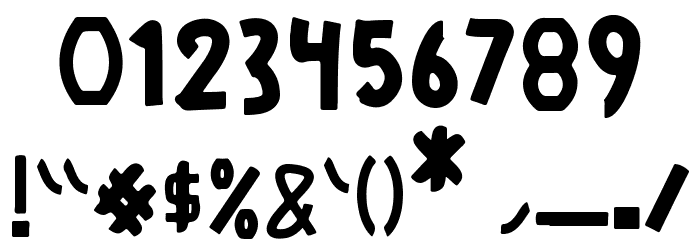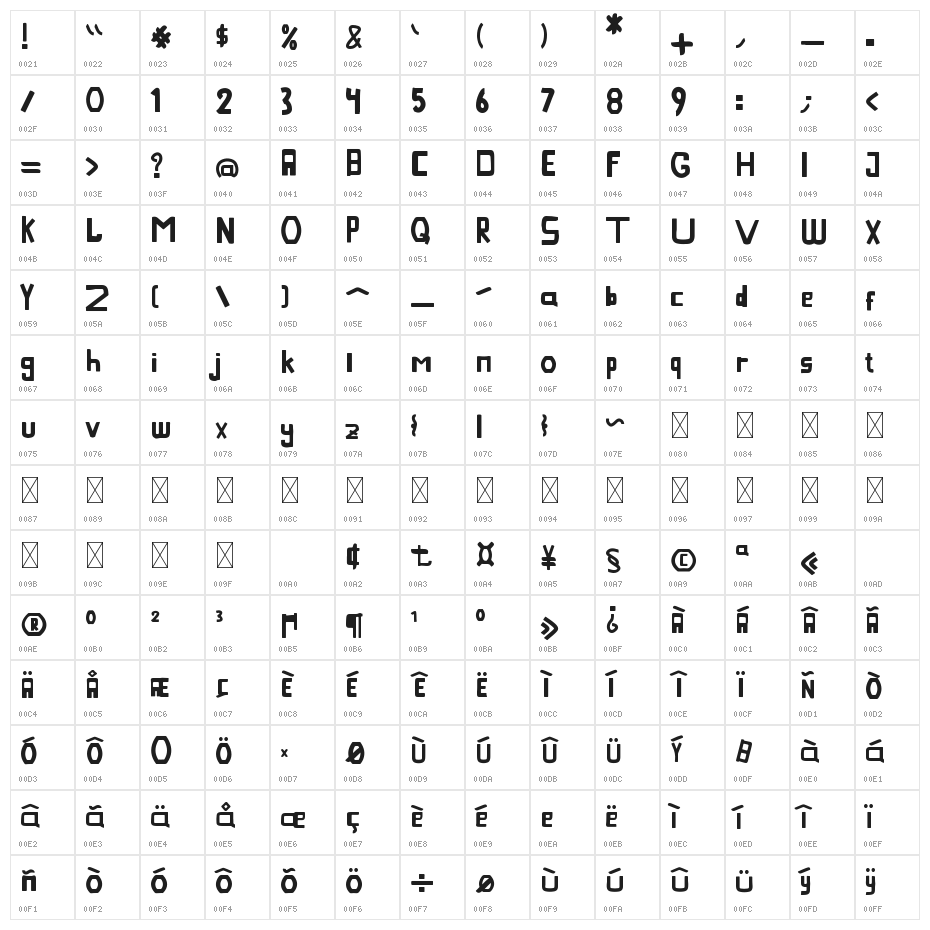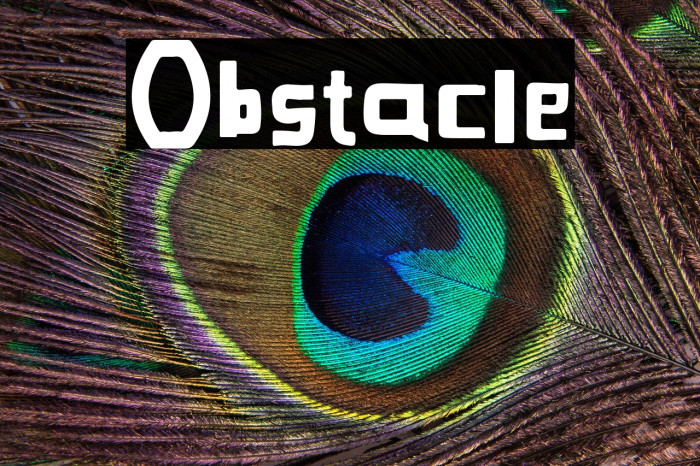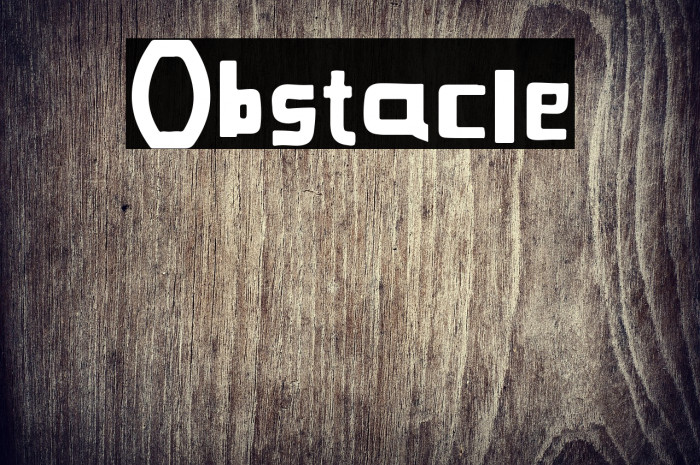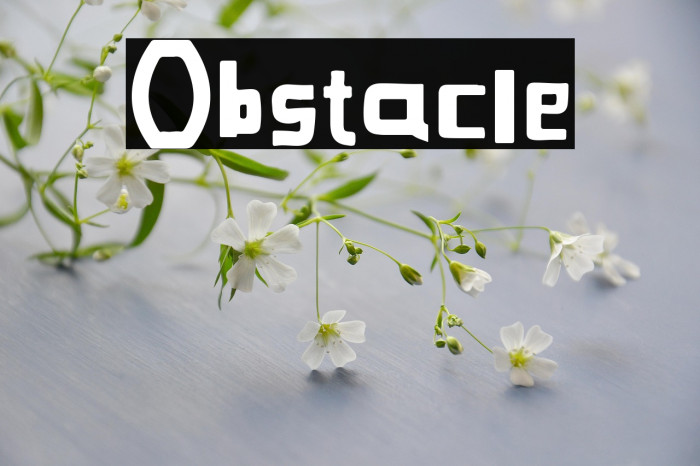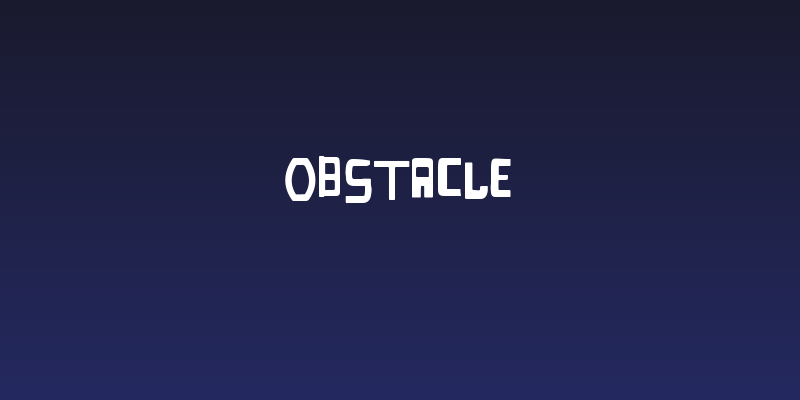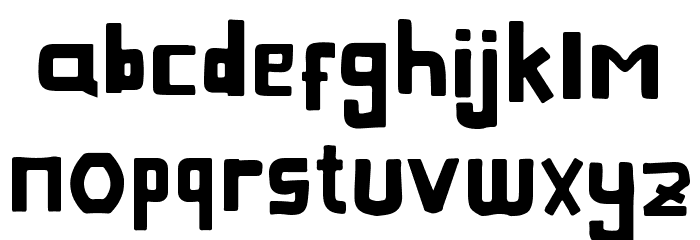
Obstacle Font
Obstacle Description
This font features a bold and playful design with a distinct geometric influence. The characters are thick and rounded, giving a sense of strength and approachability. The uppercase letters have a uniform height with slightly varying widths, while the lowercase letters maintain a consistent style with a touch of whimsy. The numbers are bold and easily readable, matching the overall aesthetic. Special characters are creatively integrated, maintaining the font's cohesive look. This font is ideal for projects that require a fun yet impactful visual presence.
| Overall Style | Playful, Modern |
| Proposed Projects | Ideal for children's books, playful branding, posters, and creative advertising. |